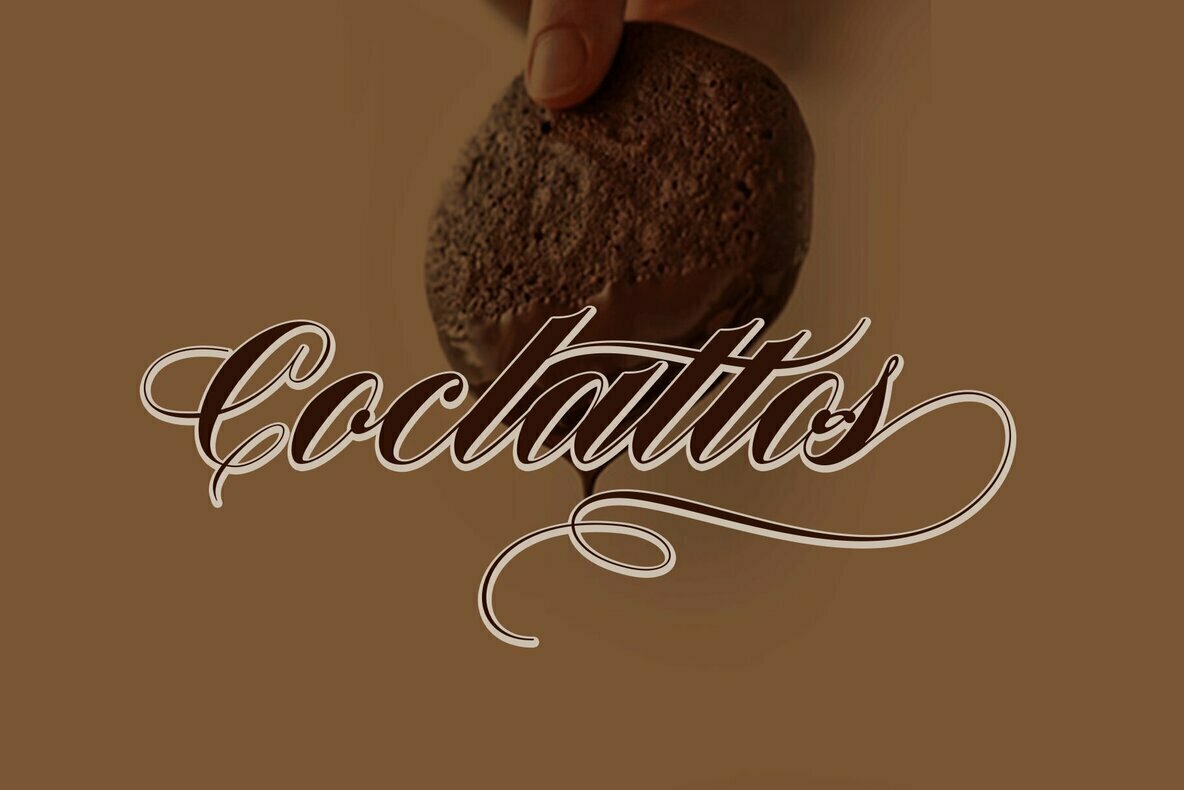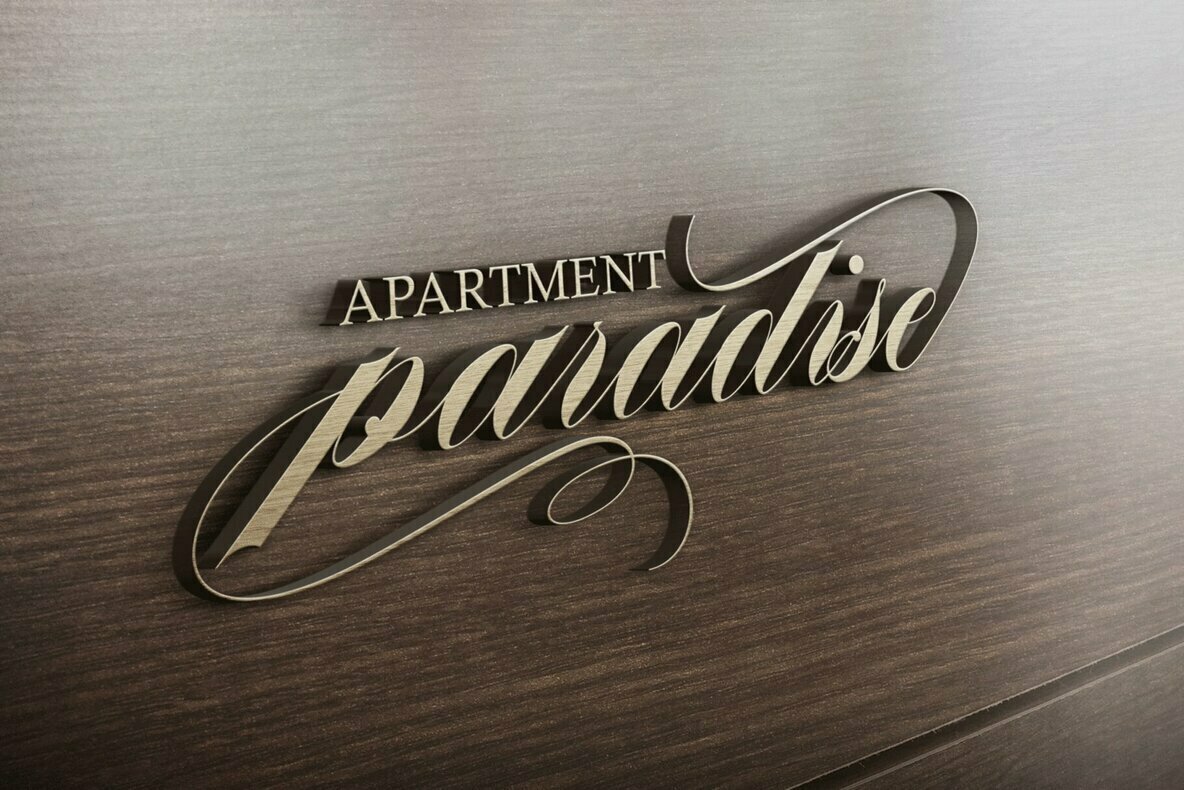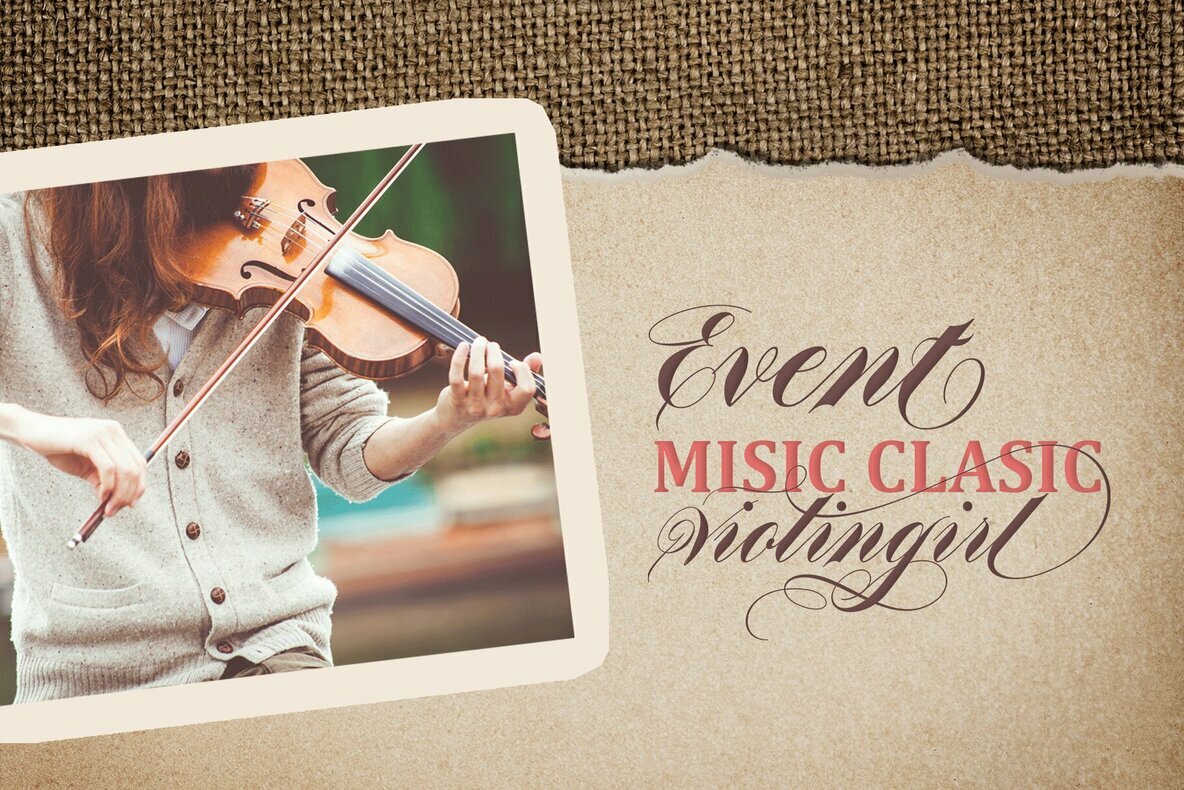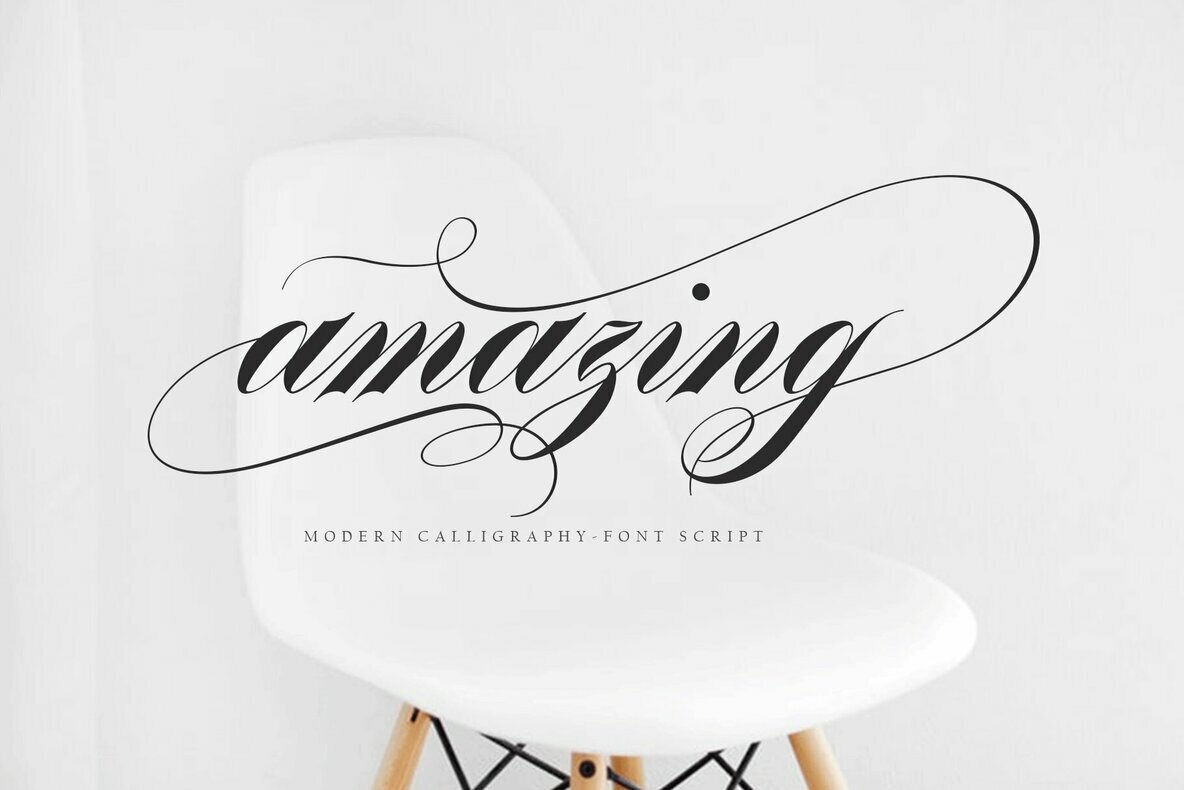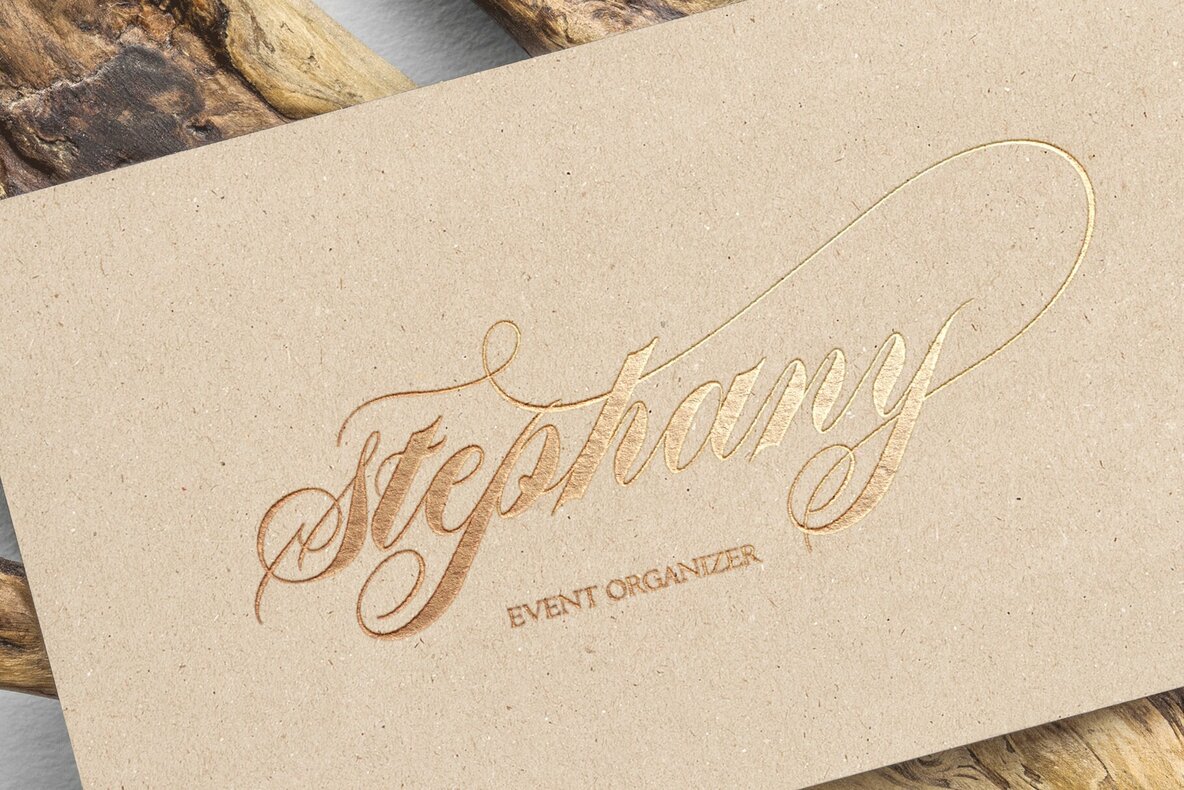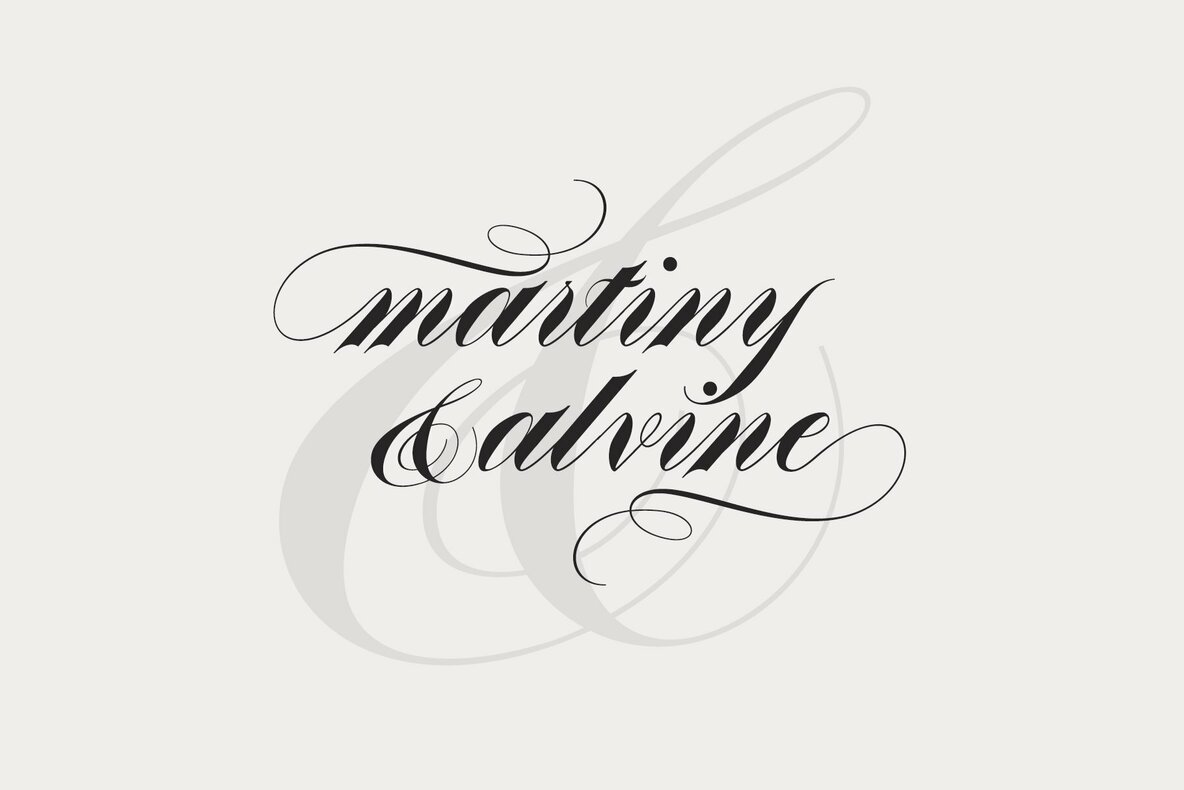
Brandy Font
Brandy
Brandy, crafted by Artisan Studio, merges the fluidity of calligraphy with the precision of modern typography. Ideal for designers seeking an elegant script font, Brandy adds a unique flair to both digital and print designs. Whether the project requires an eye-catching logo or sophisticated wedding invitations, this font offers versatility and charm. Features: Brandy is suitable for an array of projects, including headings, logos, t-shirts, and more. To fully utilize its OpenType stylistic alternates, use software like Adobe Illustrator CS, Adobe InDesign, or CorelDraw X6-X7. This bond of artistry and functionality makes Brandy a valuable asset for any creative endeavor.Brandy: A Distinctive Script with Elegance